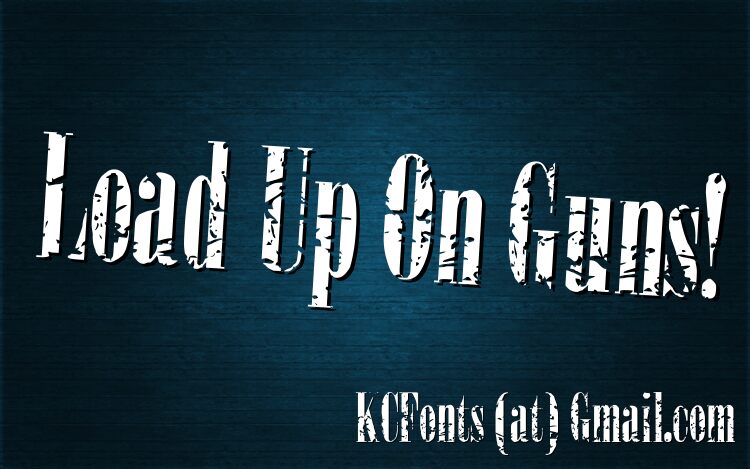
Load Up On Guns by Kevin Christopher of KC Fonts is a free eroded serif display font. Tall, tightly packed letters combine sharp classical serifs with severe cuts and splintered gaps. The damage is dense and aggressive.
Grunge and hard-rock references make it suited to album covers, concert posters, and skate merchandise, where the lettering can become part of the distressed artwork. Its mix of formal proportions and shredded surfaces also fits dystopian game graphics and horror publishing, especially projects built around decay, conflict, or urban ruin.